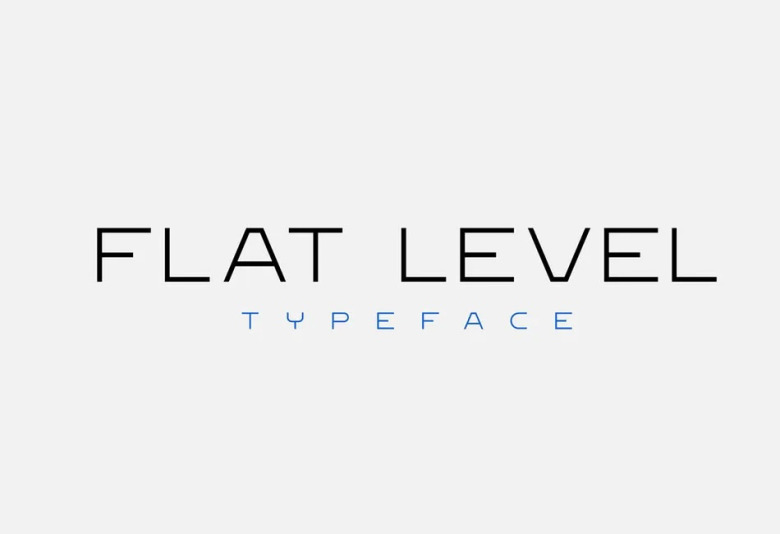
Flat Level Font
Flat Level is an all-original sharp-angled sans-serif display. It’s got two weights, consists entirely of capital letters, numbers and symbols. In terms of language, it “understands” only English and Turkish.
With wide application possibilities including logo design and product packaging as well as clothing brands magazines issue headings, Flat Level could be anything you want it to be.
Flat Level Sans Serif Font